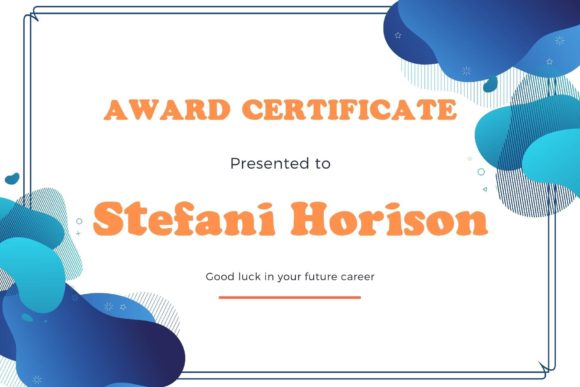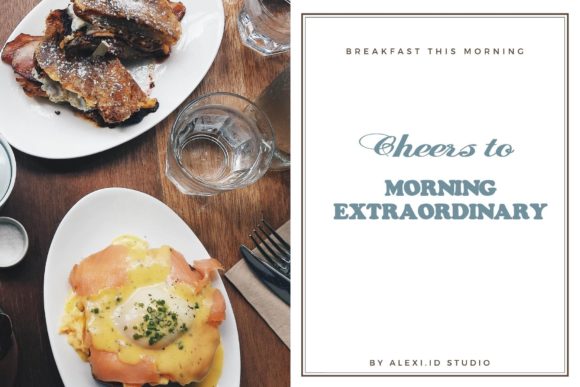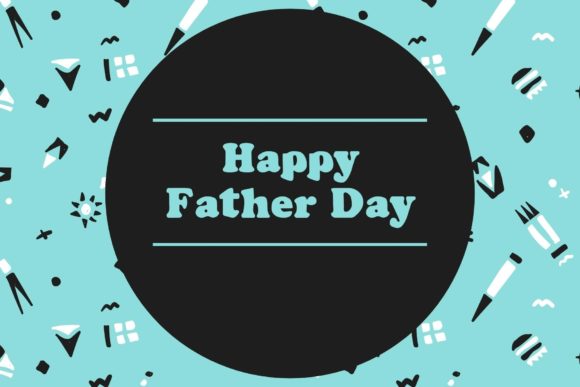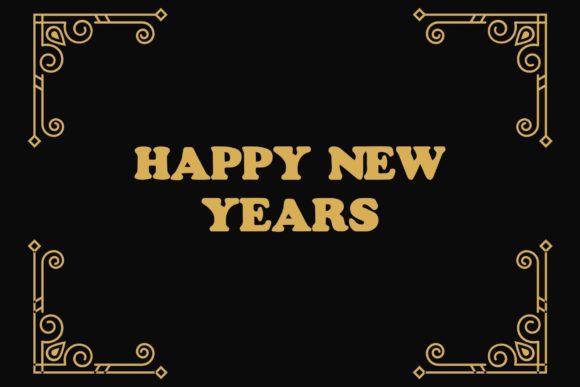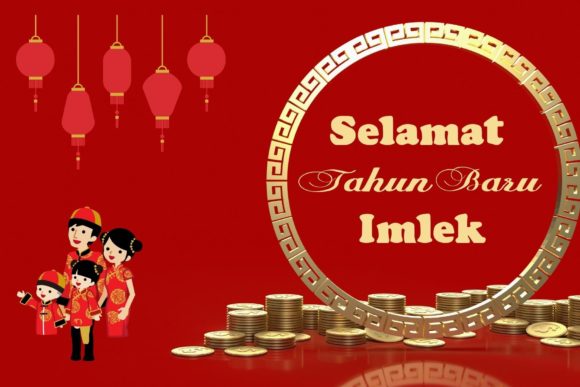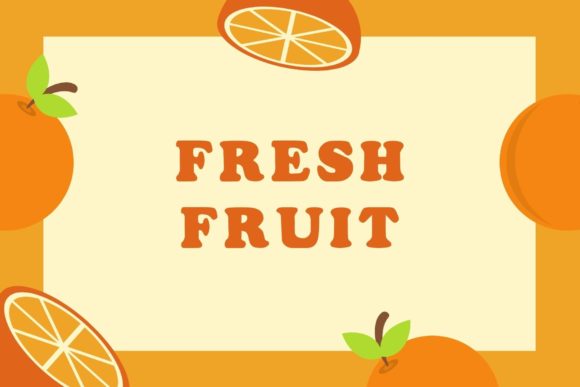
Introduction to Mendo Font
Mendo is a stylish and cool display font.
Fall in love with its authentic feel and use it to create invitations, stationary art, eye-catching social media posts, and cute greeting cards .
Key Features of Mendo Font
Why Choose Mendo Font?
Mendo Font offers exceptional quality and versatility, making it a valuable addition to your design toolkit. Whether you’re creating for personal projects or commercial use, Mendo Font delivers professional results.